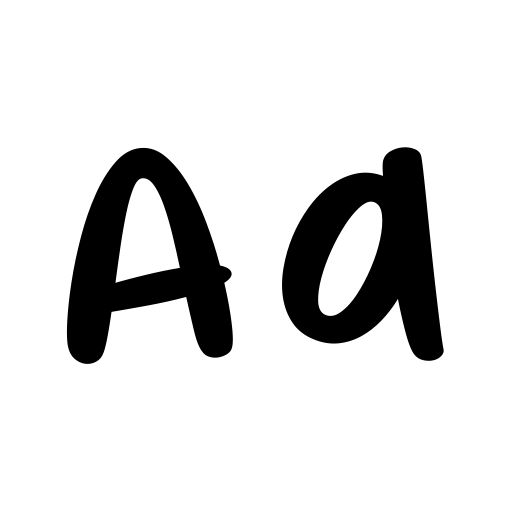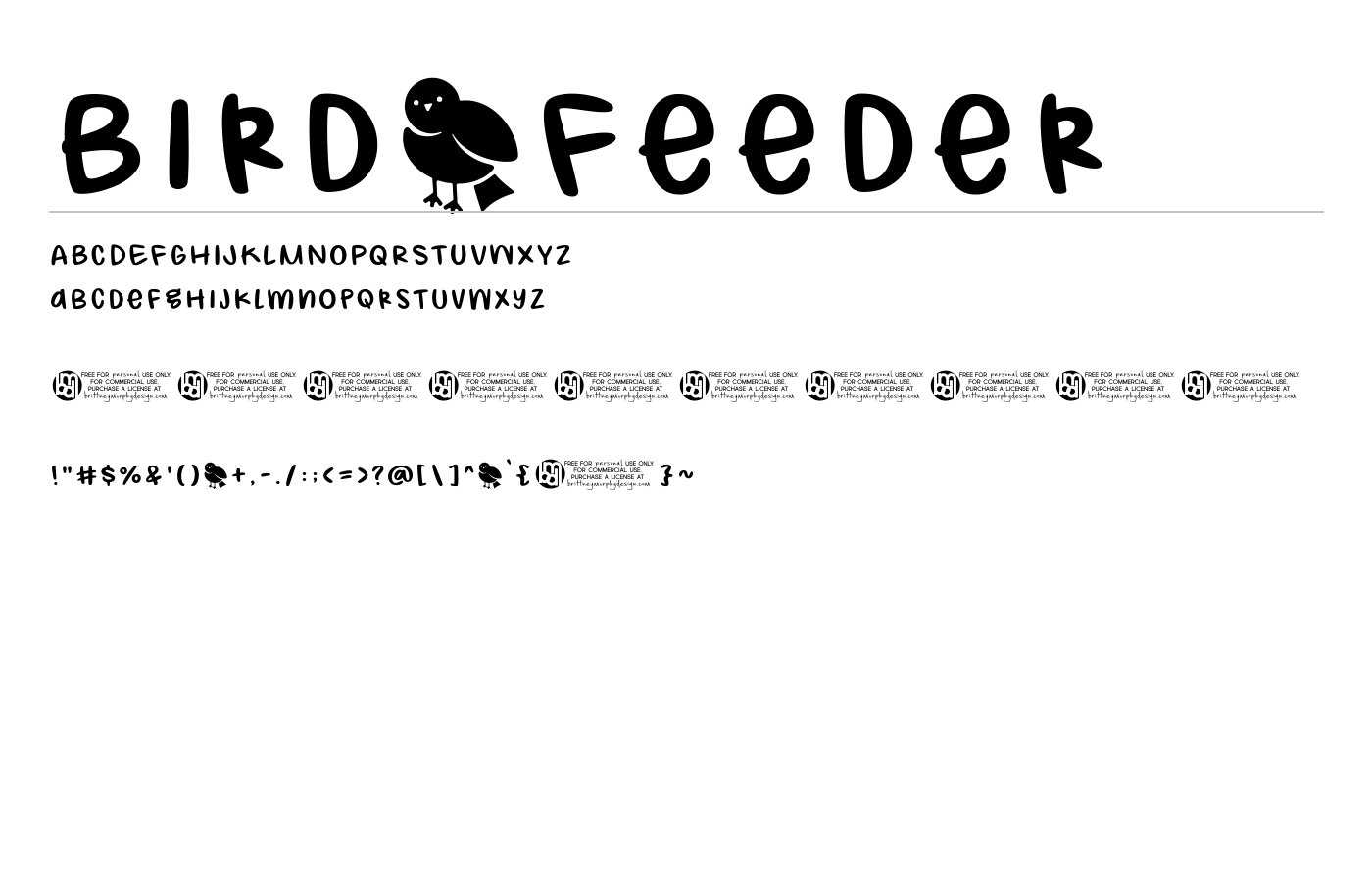
Bird Feeder is a whimsical, hand-drawn sans serif font with playful, rounded letterforms and a casual, friendly vibe. Its uneven strokes and quirky glyph shapes make it ideal for informal designs such as children's books, greeting cards, and fun branding projects. This font brings a lighthearted, approachable feel perfect for adding charm and personality to creative and playful contexts.
Bird_Feeder Font
About Bird_Feeder Font
| Font family | Bird_Feeder Font |
| Designer | Brittney Murphy |